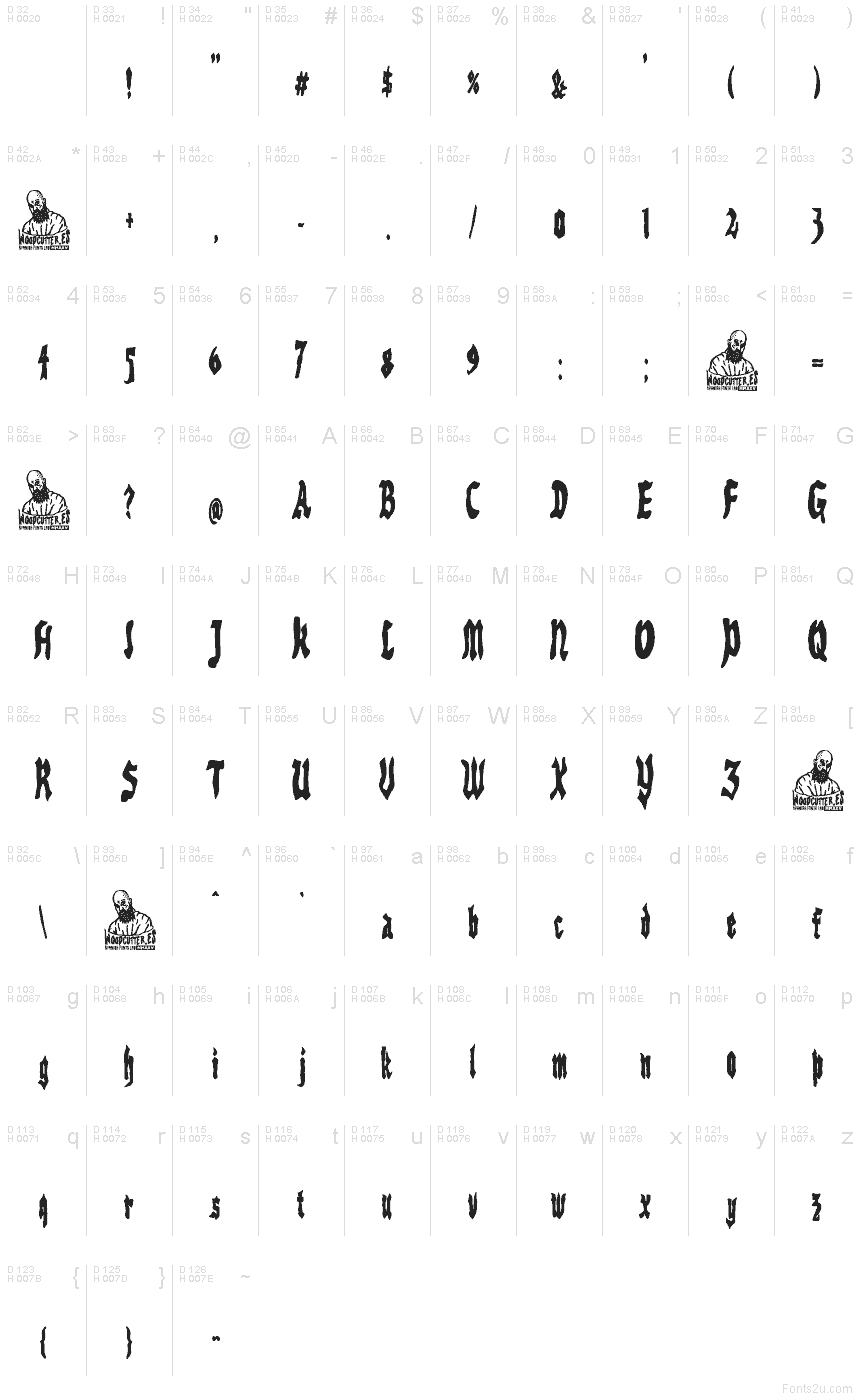
Templario Borracho
Templario Borracho font by Woodcutter is a free modern gothic display font. Its defining trick is a “tipsy” blackletter rhythm—thick, inky strokes stagger and flare like hand-cut wood, giving headlines a raw, ceremonial presence with a mischievous lean. The texture feels smoky and slightly unruly, so type looks alive rather than stiff, pulling the eye with jagged silhouettes and dense, punchy color.
Using Templario Borracho, your titles land with ritual drama and a wink: metal band logos, Halloween posters, medieval festival signage, speakeasy or brewpub menus, game titles, and horror zines all benefit from its gritty swagger. This free font shines when set big; keep body copy in a clean grotesque or geometric sans and let the headline roar. A touch of extra tracking helps the forms breathe without losing their bite.